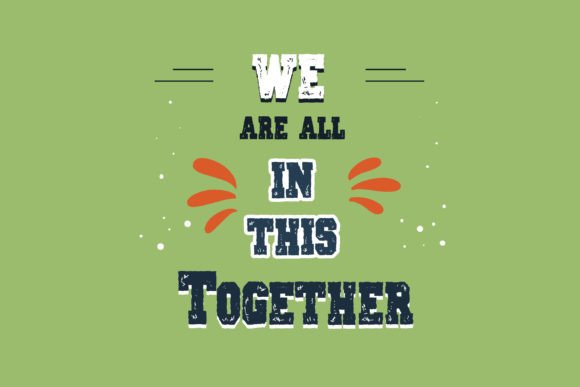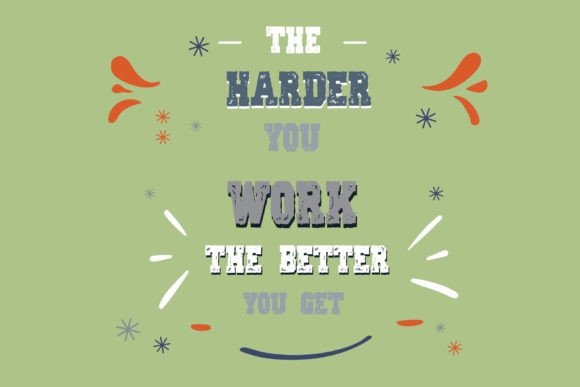
Varsity Grubby is a hand-crafted font that brings a gritty and authentic touch to the classic varsity style. Packed with grungy textures and raw character, this font adds a rugged charm to your designs. Whether you’re creating sports-themed graphics, vintage logos, or unique headlines, Varsity Grubby’s worn-in look adds a distinct edge that’s both nostalgic and bold.